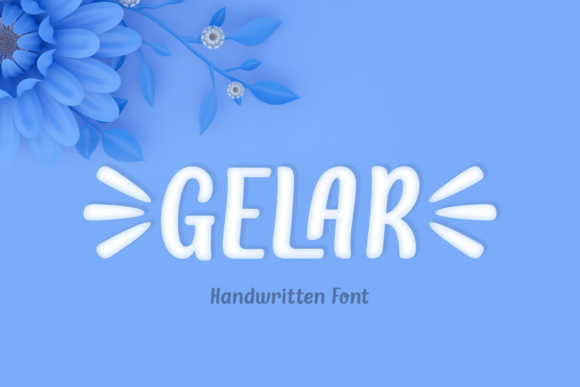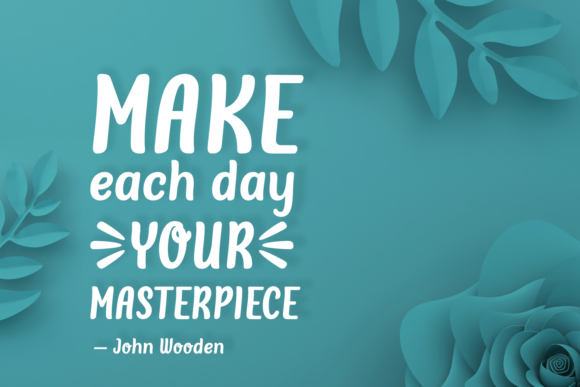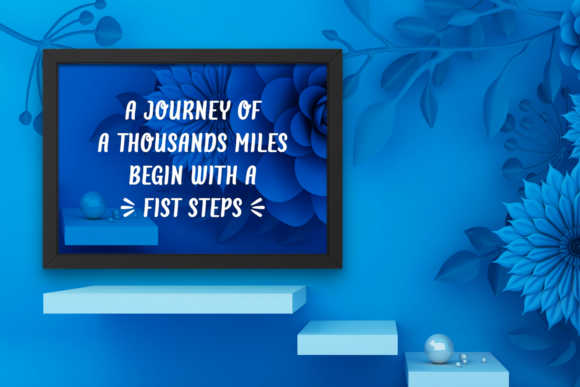
About Gelar Font
Gelar is a cute and casual handwritten font with an incredibly friendly feel. It is carefully handcrafted to become a true favorite. Its casual charm makes it appear wonderfully down-to-earth, readable and, ultimately, incredibly versatile. Gelar will look outstanding in any context, whether it’s being used on busy backgrounds or as a standalone headline!